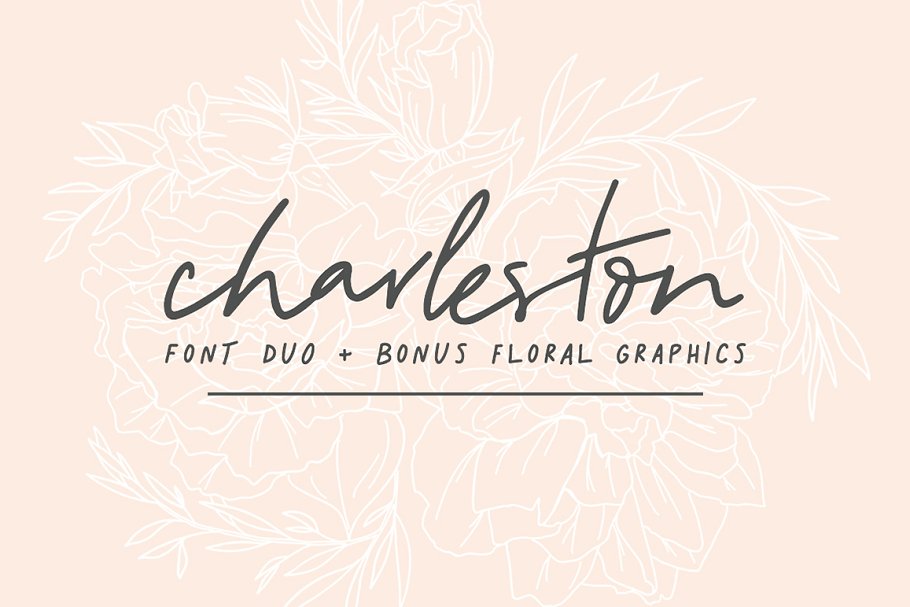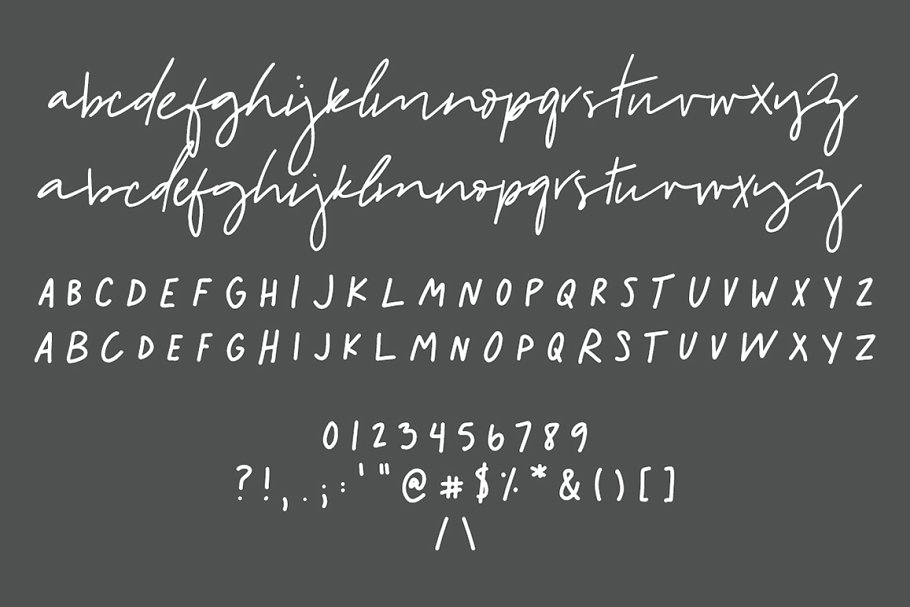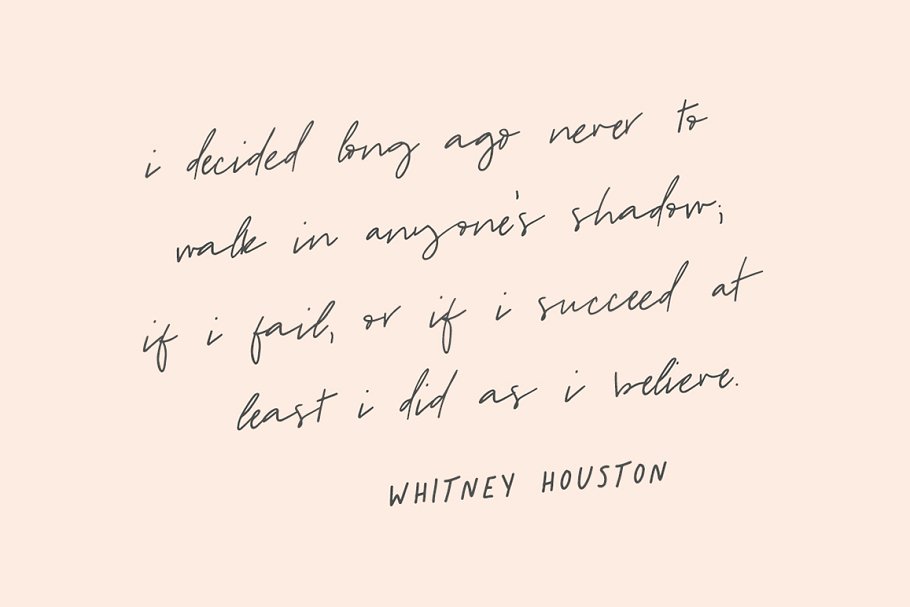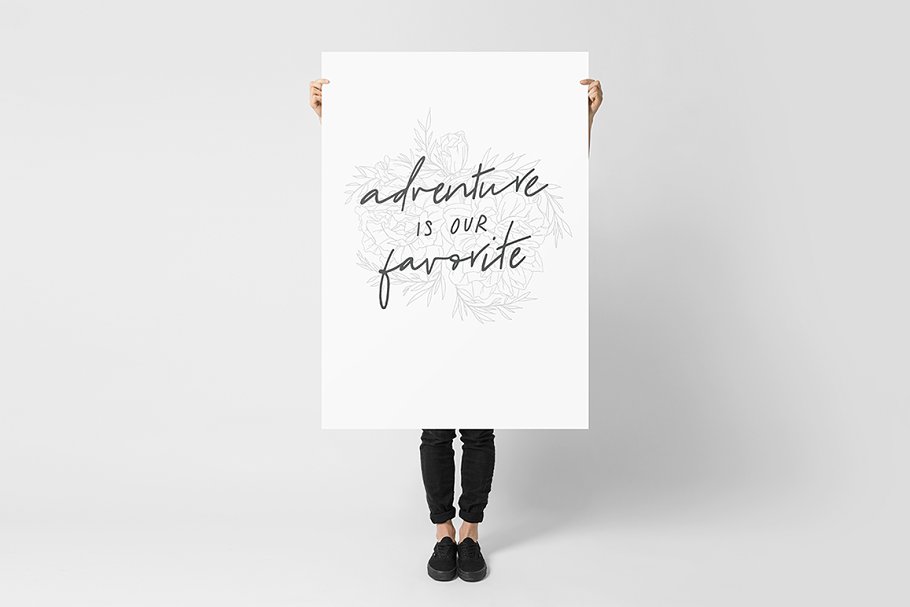
About the Charleston Duo Florals Font
Charleston is a beautiful font duo that is perfect for informal, messy design, I love this pair for invitations, logo design, quotes, and content creation (helloooooo Instagram!), It also includes three beautiful floral graphics to add to your logos, backgrounds, or use by themselves!Charleston Script is a gorgeous all-lowercase script that has stylistic alternates available via the uppercase letters
Charleston Regular is casual all-caps sans serif that has stylistic alternates available via the lowercase letters, Includesall lowercase Charleston Scriptall uppercase Charleston Regularnumbers + punctuation3 beautiful floral vectors + png